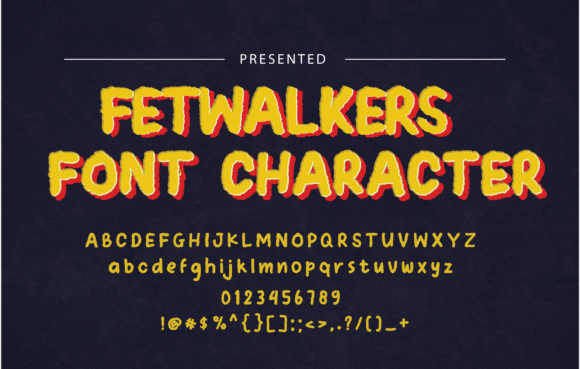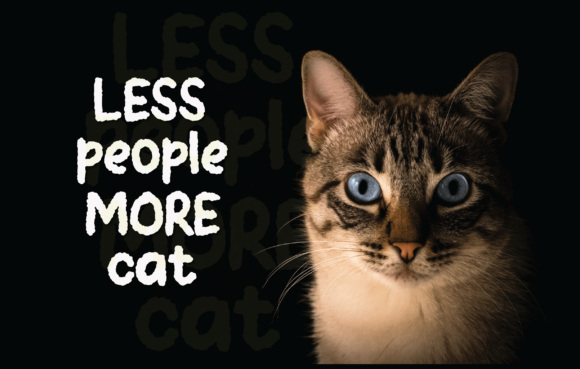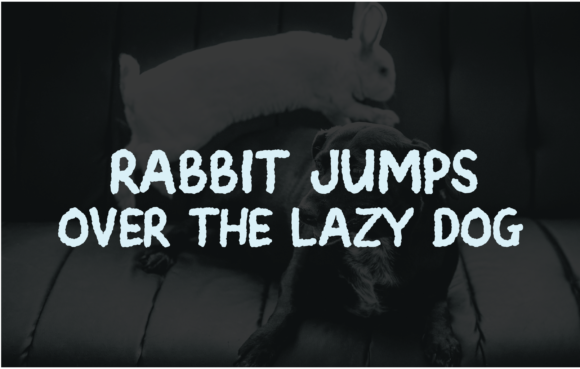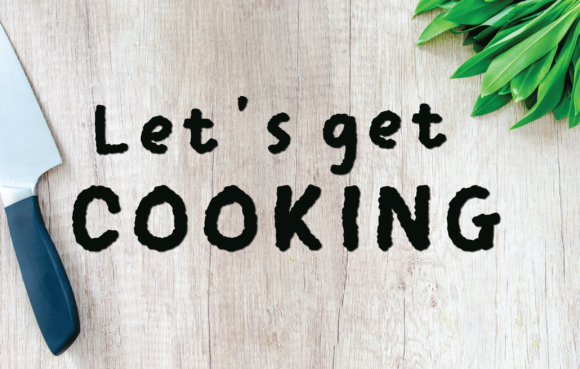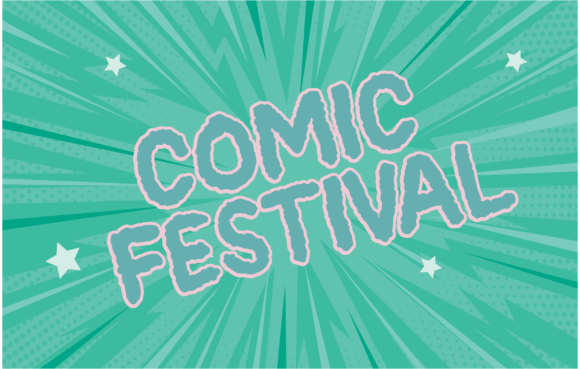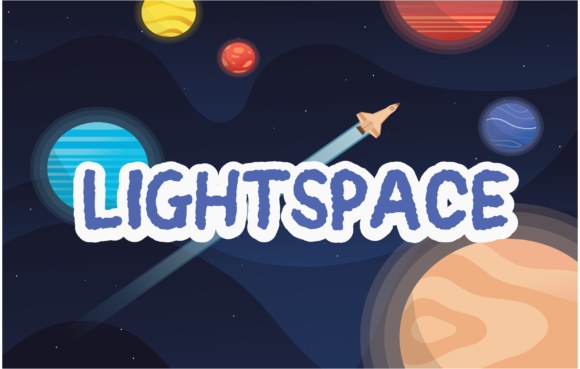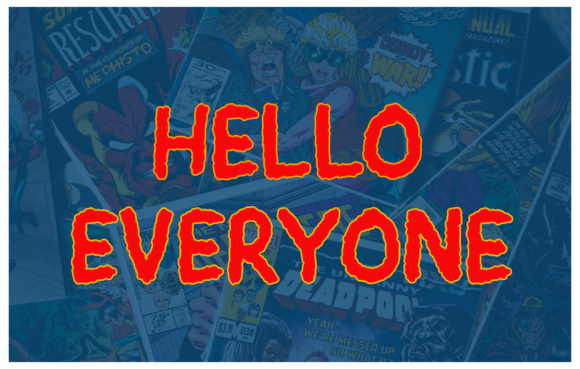
Fetwalkers Font
About Fetwalkers Font
Fetwalkers is a cute and friendly handwritten font. Playful and a little bit quirky, this font is the perfect fit for all of your design art, branding, posters, and crafty DIY projects.